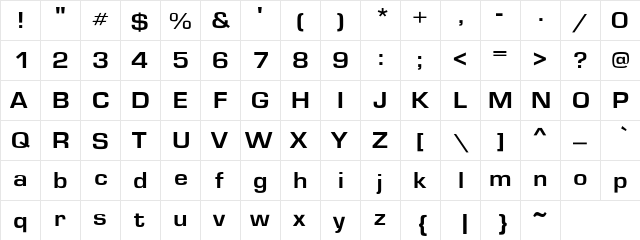
Lynette Extended Bold Regular
Design Context for Lynette Extended Bold Typeface
Lynette Extended Bold is a composed and adaptable typeface that performs quietly and consistently across a wide range of design contexts. Its bold stroke weight gives it real presence on the page.